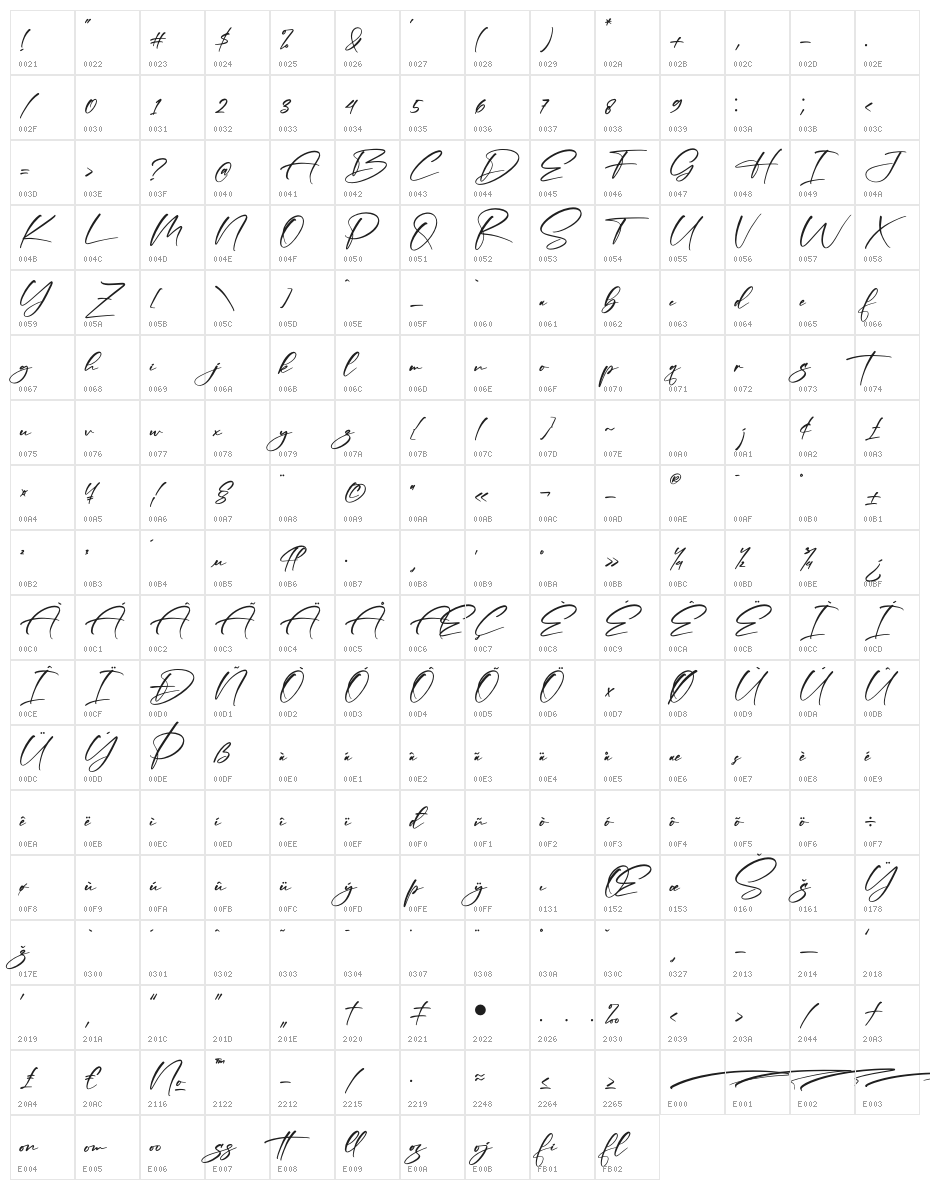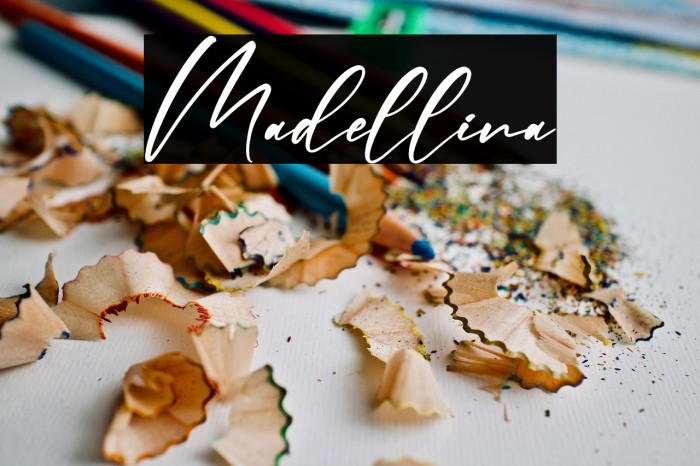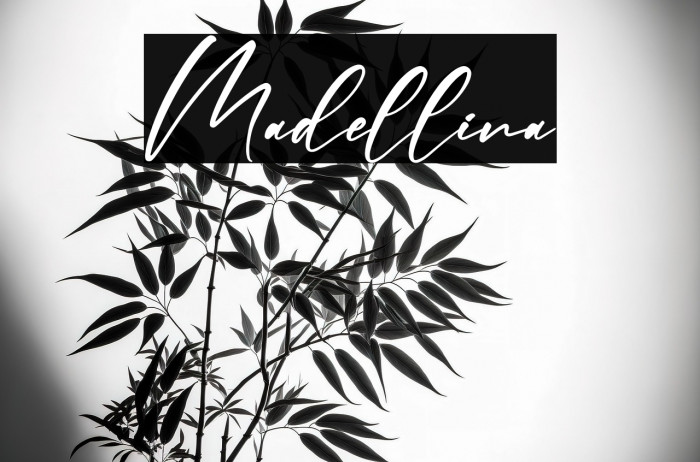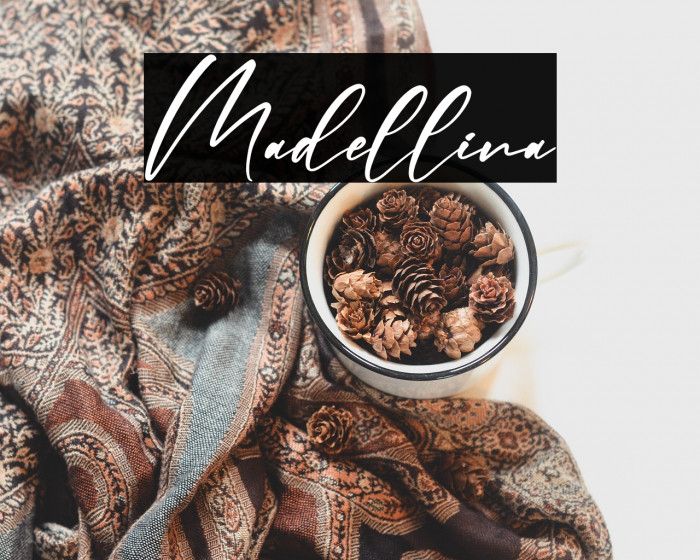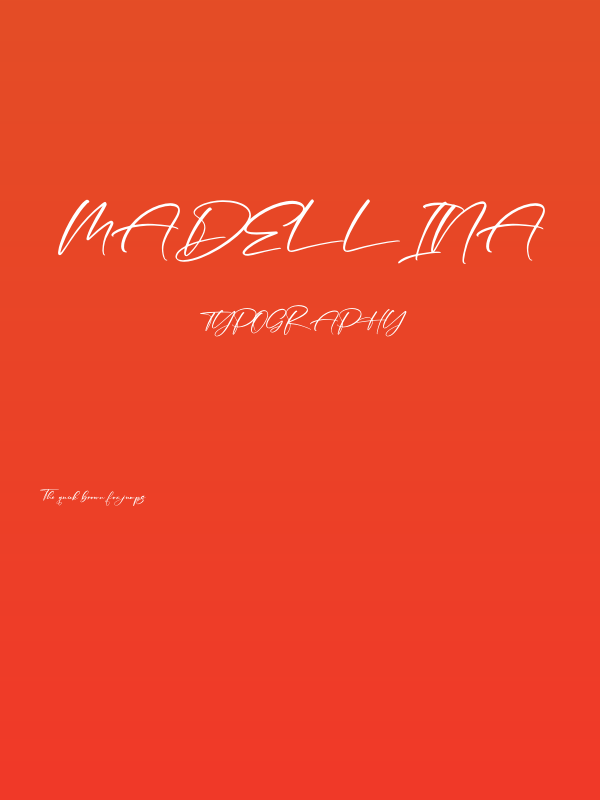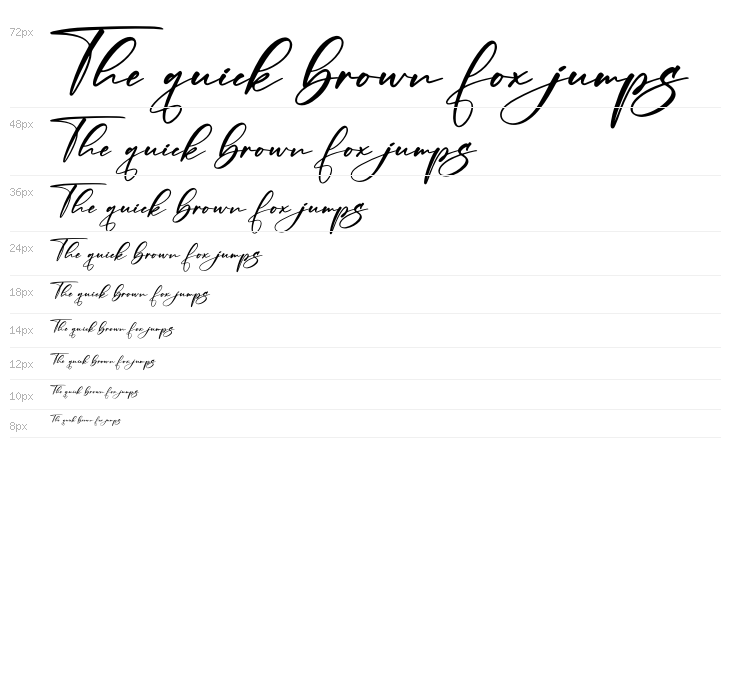
Madellina Font
Madellina Description
Elegant, flowing script font with a handwritten appearance, featuring high contrast between thick and thin strokes, long ascenders and descenders, and a natural, fluid motion throughout the characters.
| Overall Style | Modern, Decorative, Handwritten |
| Use Case | Logos, Headlines, Invitations, Signatures |
| Proposed Projects | Wedding invitations, personal branding, greeting cards, social media graphics, elegant packaging. |